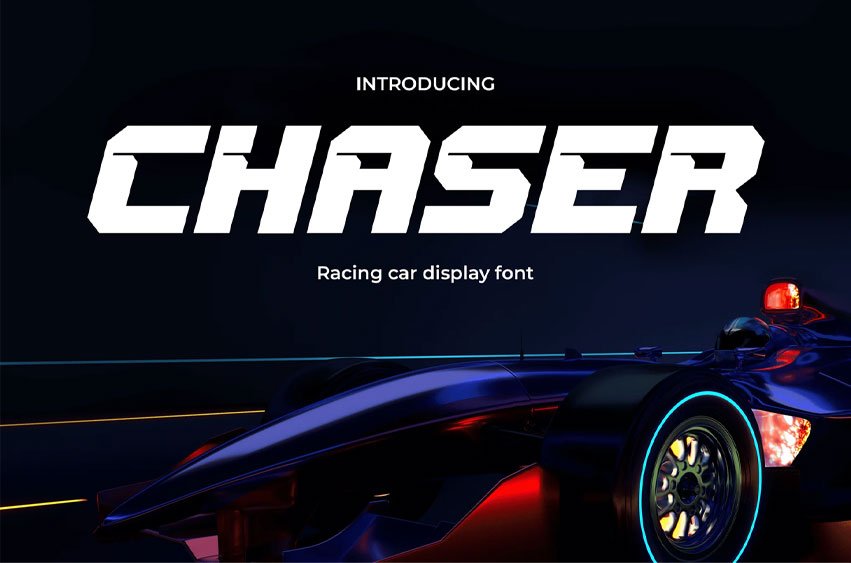
Chaser Font is perfect for those who live and breathe the thrill of the race. Its sleek and modern design captures the excitement of high-speed competition, making it the ideal choice for sports events, the automotive industry, and game design.
Whether you’re designing a poster for a racing event or a game cover for a high-octane game, Chaser will help you create a bold and powerful visual statement. With its sharp lines and dynamic curves, this font will convey a sense of speed, adrenaline, and victory, making it the perfect choice for all your racing and sports-related projects.